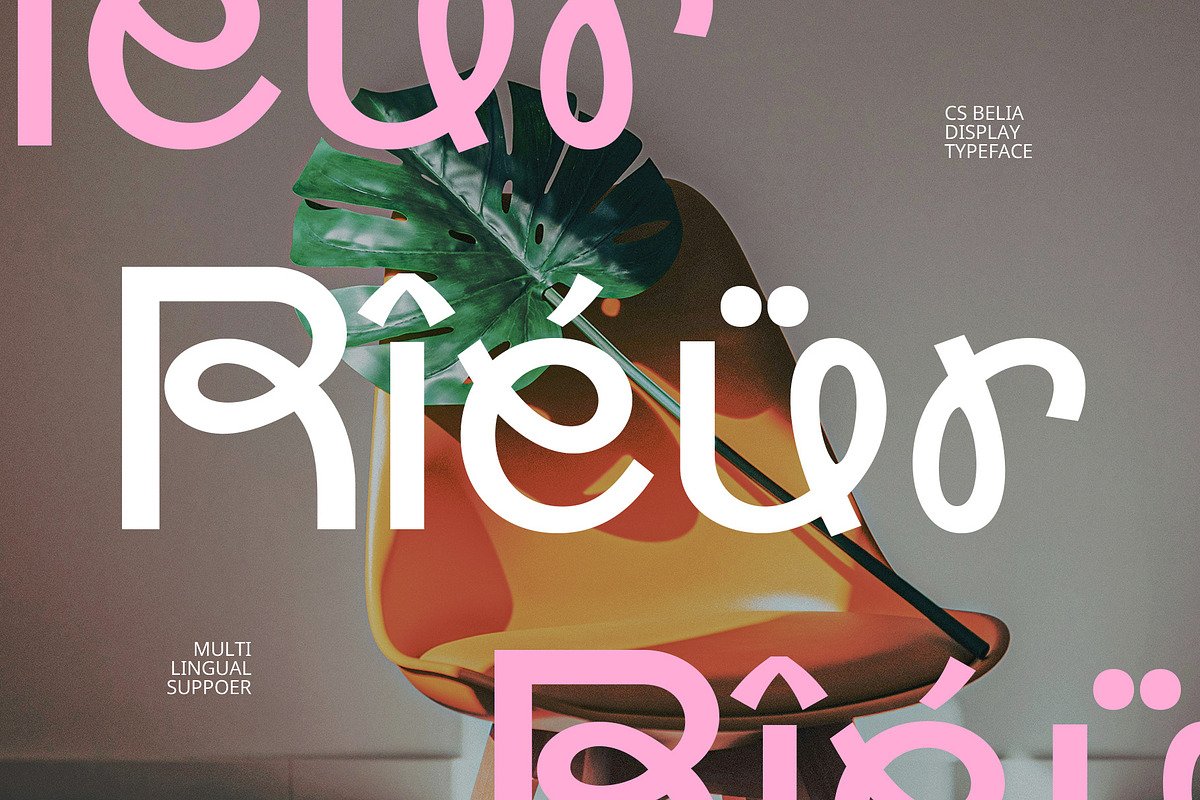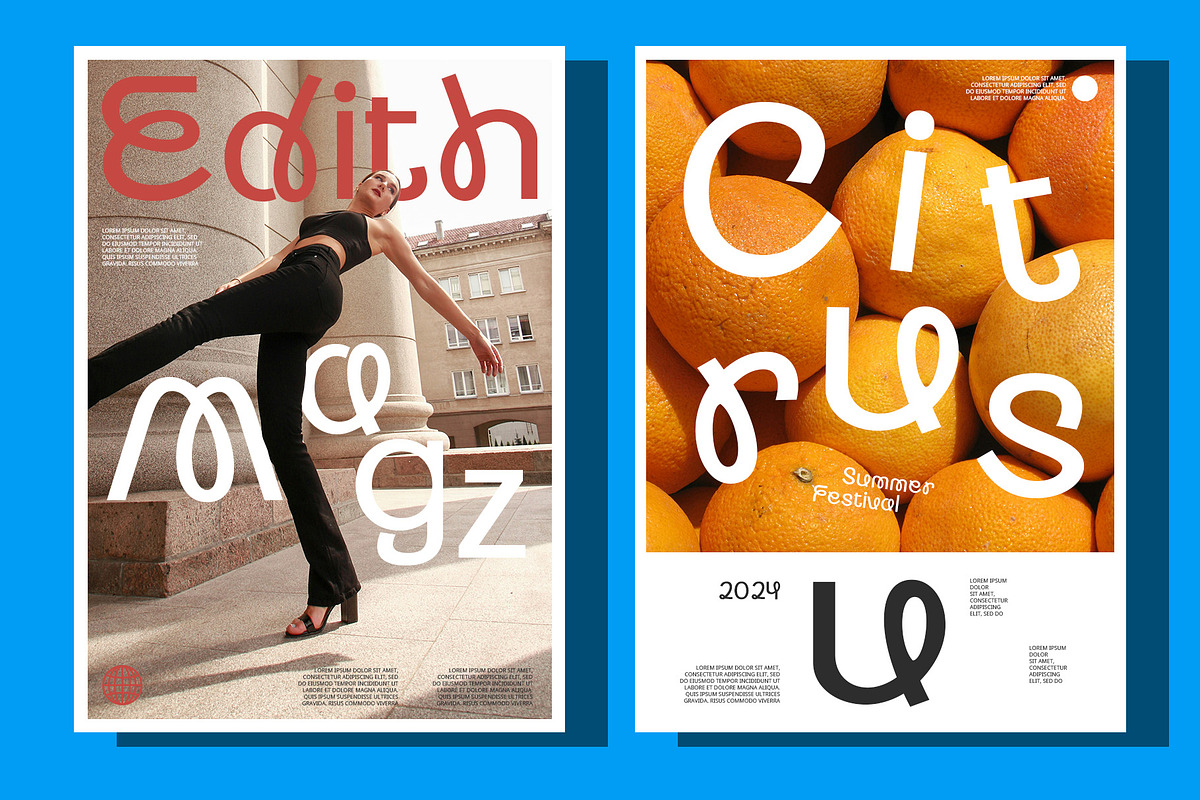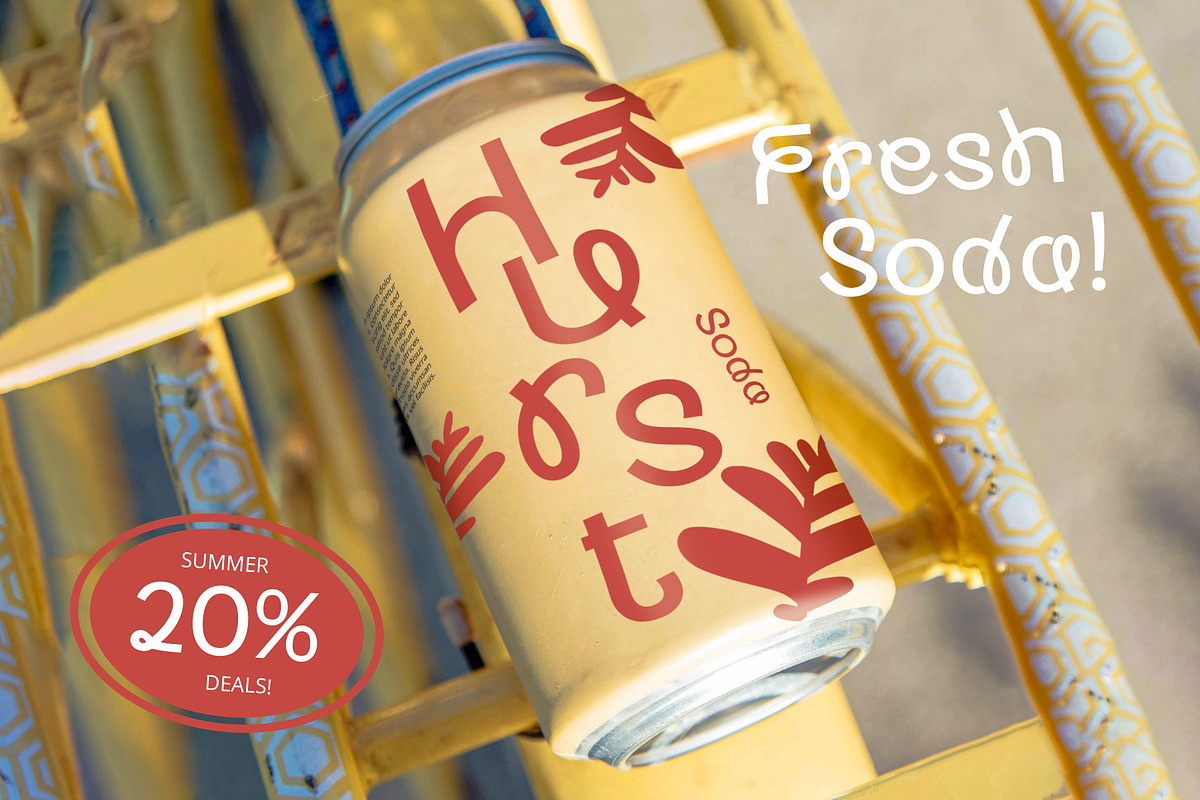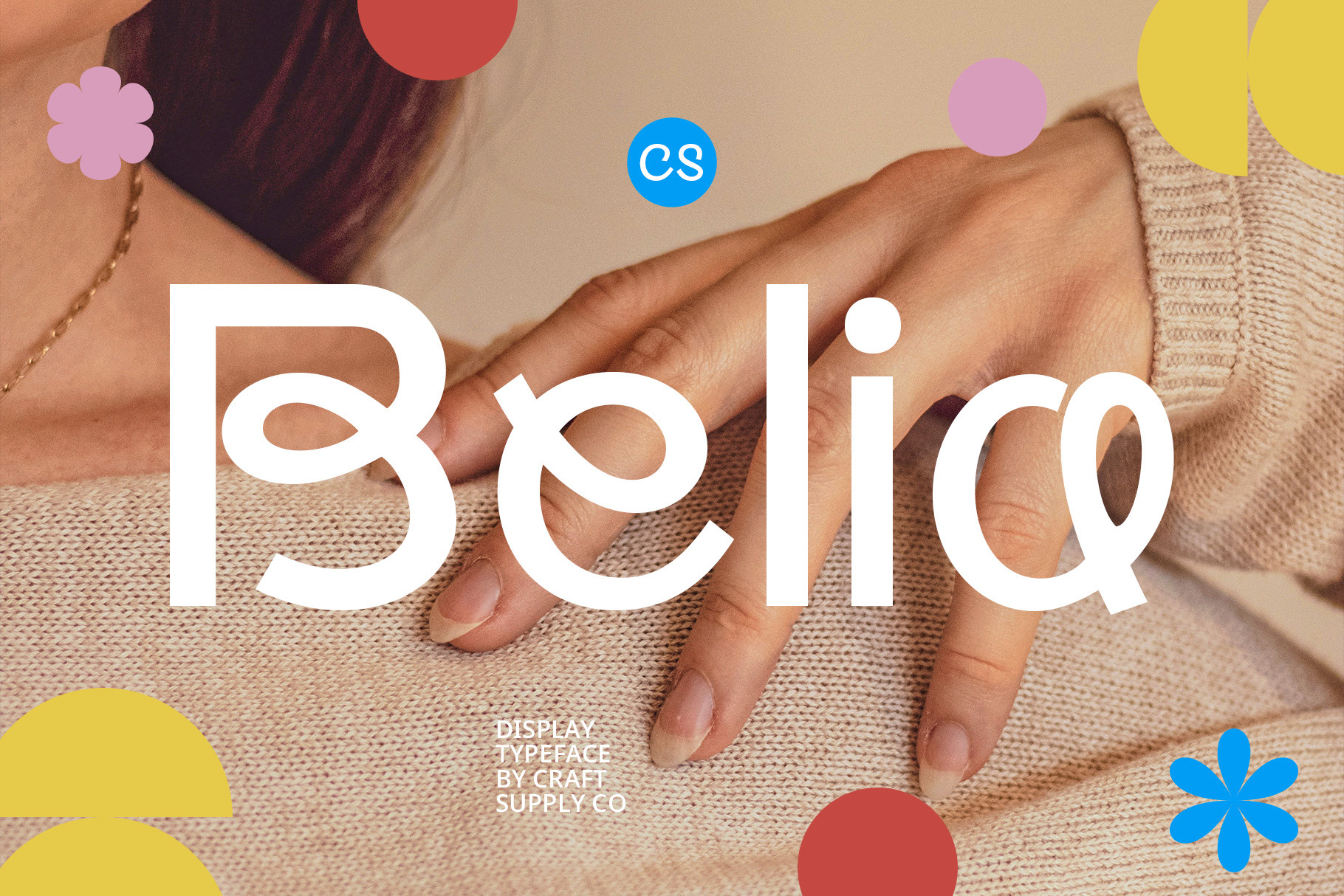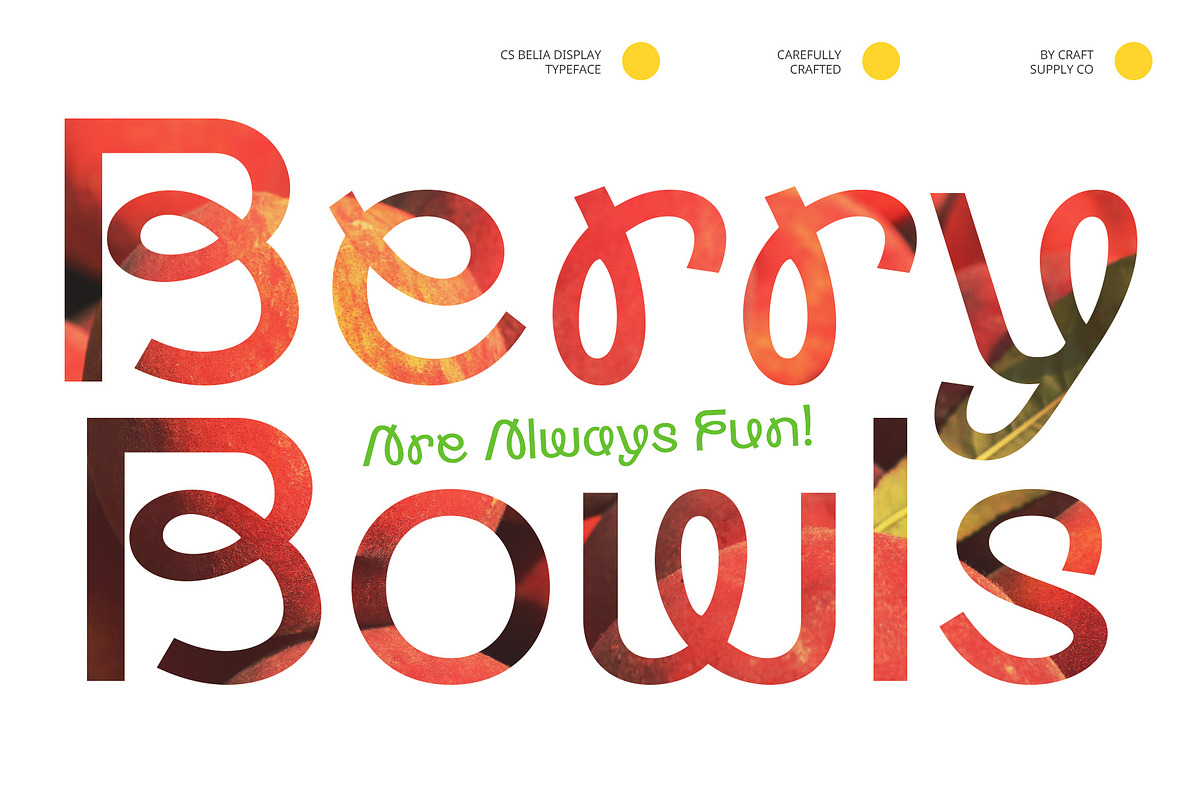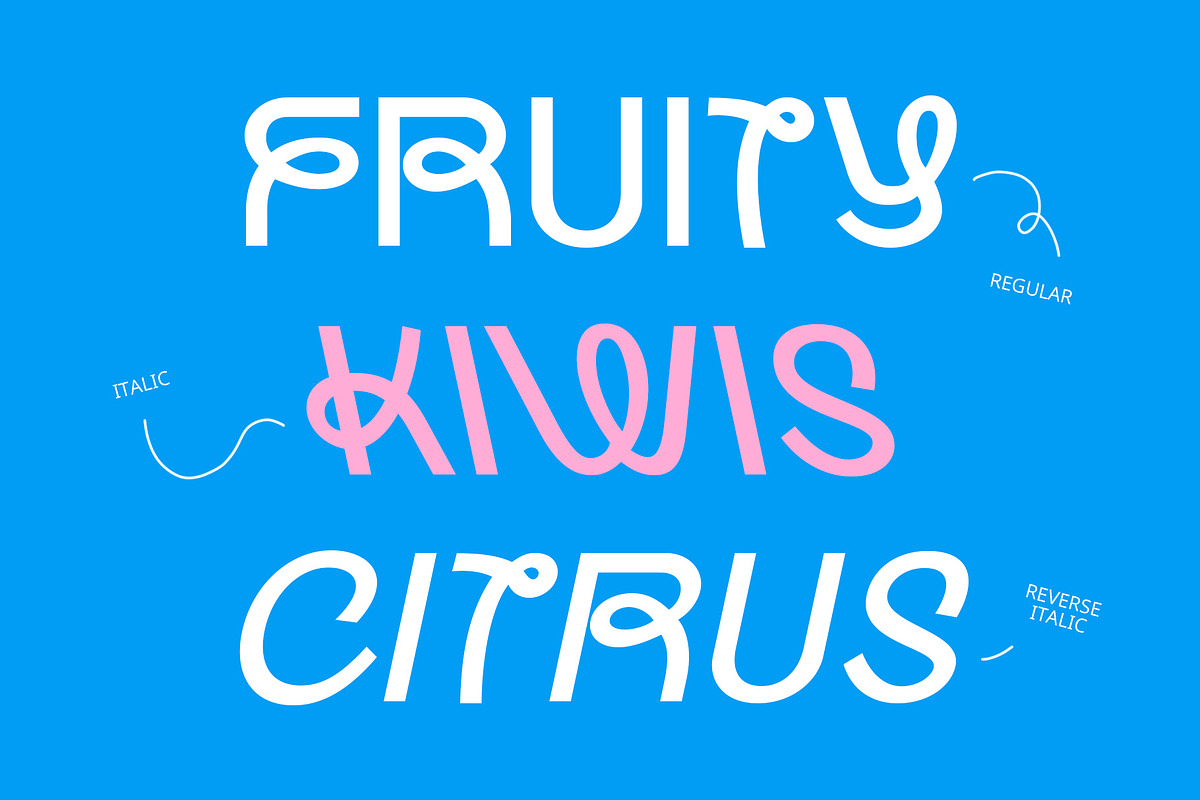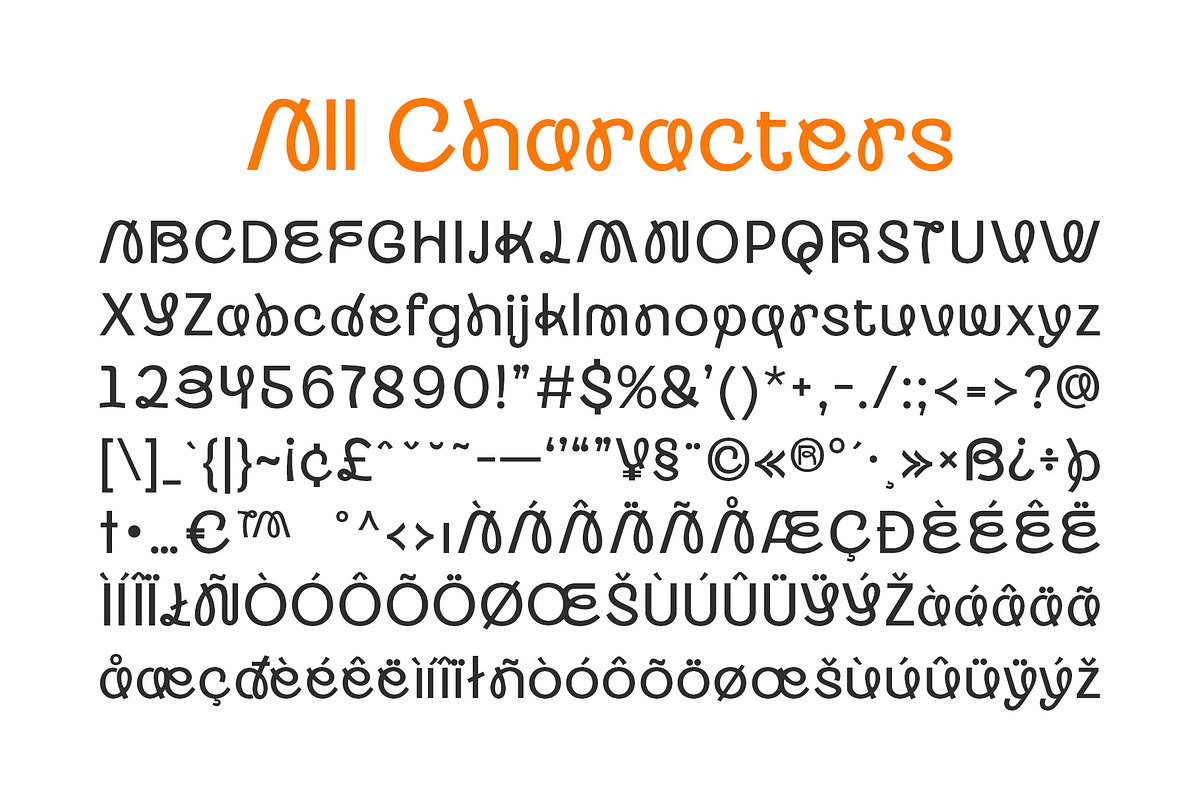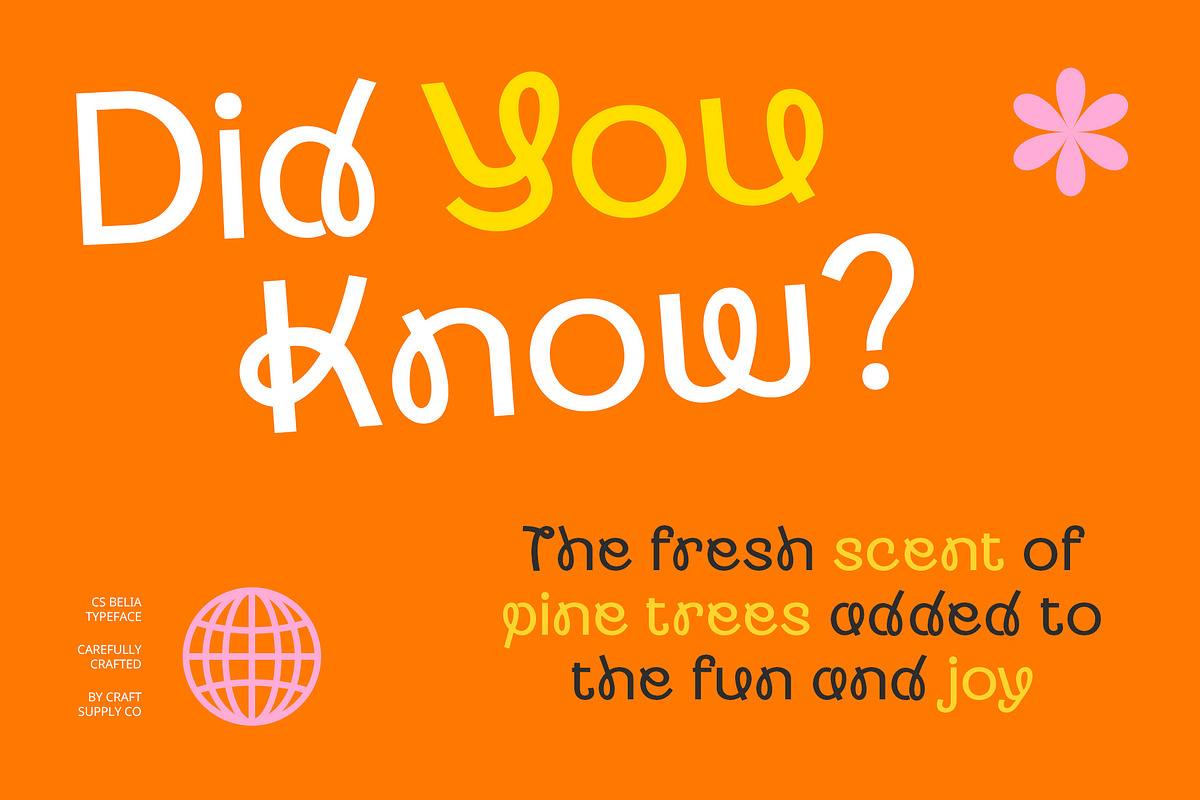
CS Belia – Display Sans Serif Font
CS Belia: Playful and Energetic Display Sans-Serif Font
Curved and Swirling Shapes CS Belia is a display sans-serif font that stands out with its unique curved and swirling shapes. The font’s playful and energetic design is characterized by flowing curves and dynamic twists, creating a lively and eye-catching appearance that adds a touch of cuteness to any design.
Dynamic and Eye-Catching The playful curves and dynamic twists of CS Belia infuse a sense of movement and cheerfulness into your projects. This dynamic quality ensures that the font captures attention and maintains visual interest, making it ideal for designs that aim to be both engaging and memorable.
Perfect for Cheerful Designs Ideal for a range of fun and creative applications, CS Belia excels in event posters, playful logos, and product packaging. Its whimsical design is perfect for projects that want to emphasize fun, creativity, and a lighthearted vibe, bringing a joyful and captivating element to any visual.
Versatile for Various Projects Whether you’re designing for a lively event, crafting a playful brand identity, or packaging a product with a cheerful touch, CS Belia offers a distinctive and vibrant look. Its energetic design makes it a versatile choice for projects that require a touch of whimsy and creativity.
- CS Belia Regular
- CS Belia Italic
- CS Belia Reverse Italic